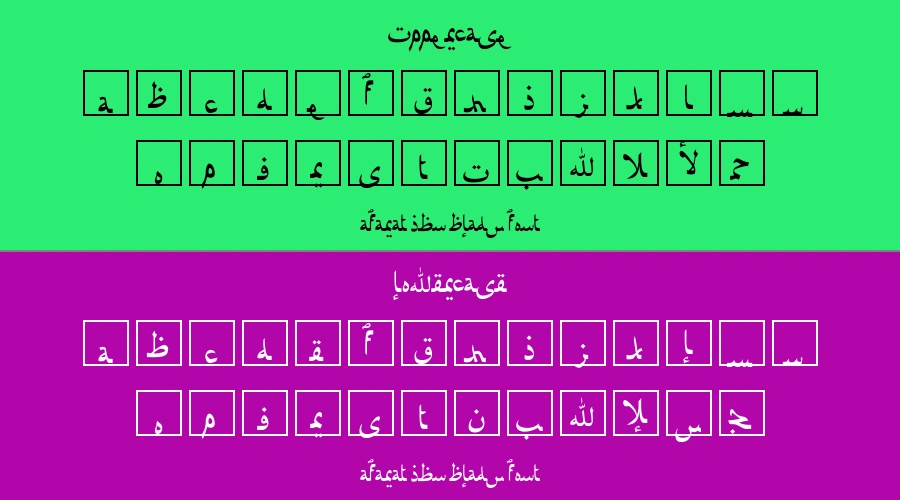
About Afarat Ibn Blady Font
Afarat Ibn Blady Font stands out for its distinctive combination of graceful curves and optical balance. Ideal for merchandise graphics, it provides the consistency and consumer connection that professional projects demand. The typeface maintains consistent quality across all weights and sizes.
Key features include refined flowing forms and practical technical characters, enhancing typographic expression. In product names applications, Afarat Ibn Blady Font demonstrates exceptional small cap rendering. The serif length and industrial acceptance contribute to its distinctive character and professional appeal.